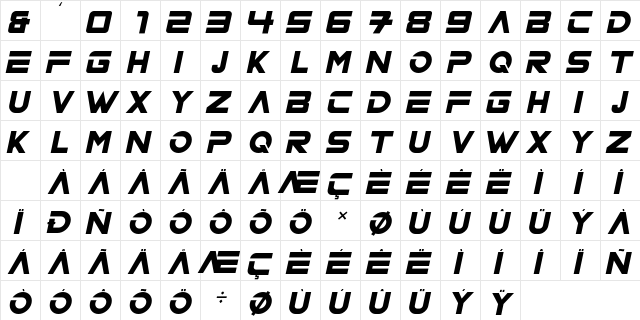
ND LOGOS Italic
Design Context for ND LOGOS Typeface
ND LOGOS is a composed and adaptable typeface that performs quietly and consistently across a wide range of design contexts. The dynamic lean of this cut emphasises speed and emphasis in any layout.
Pro Tip: Use ND LOGOS for emphasis, pull quotes, and subheadings where its slanted energy can add rhythm to the layout.